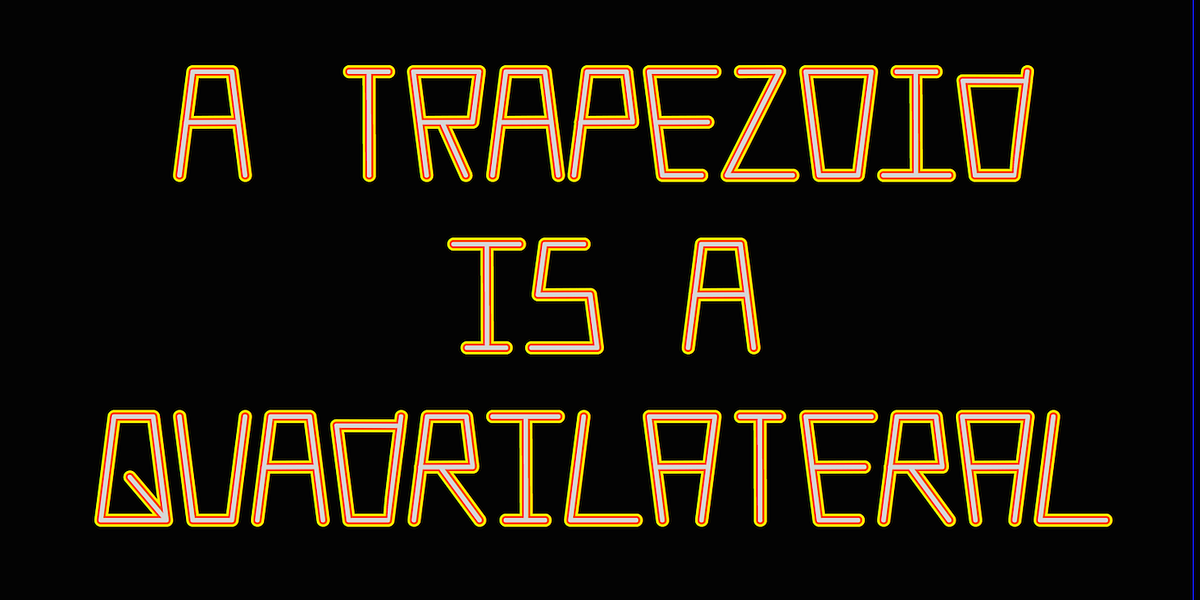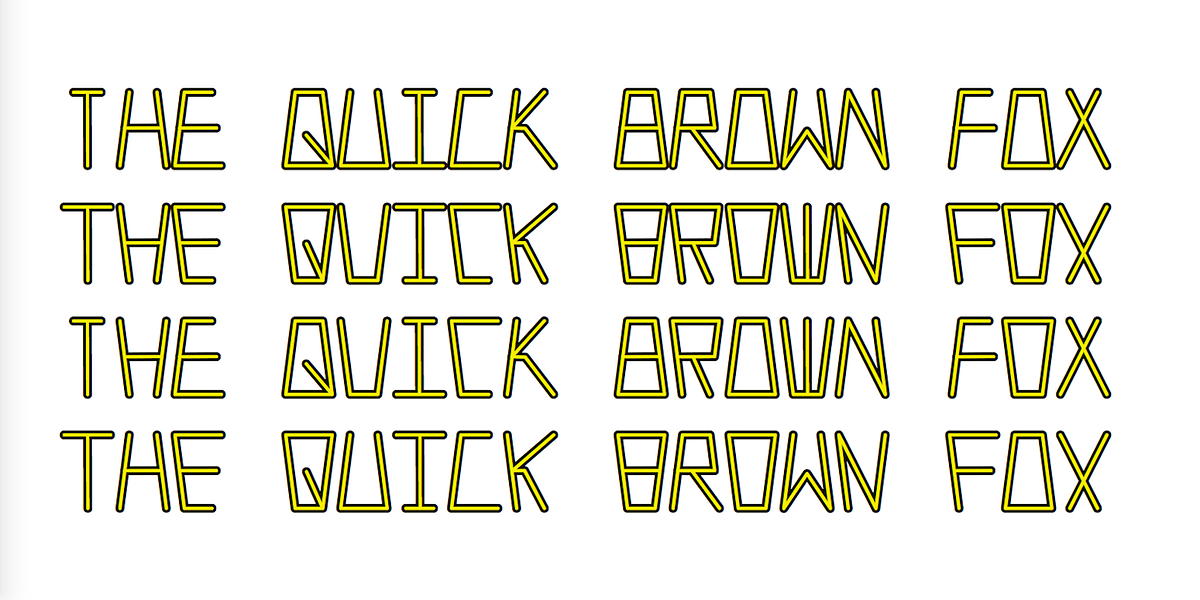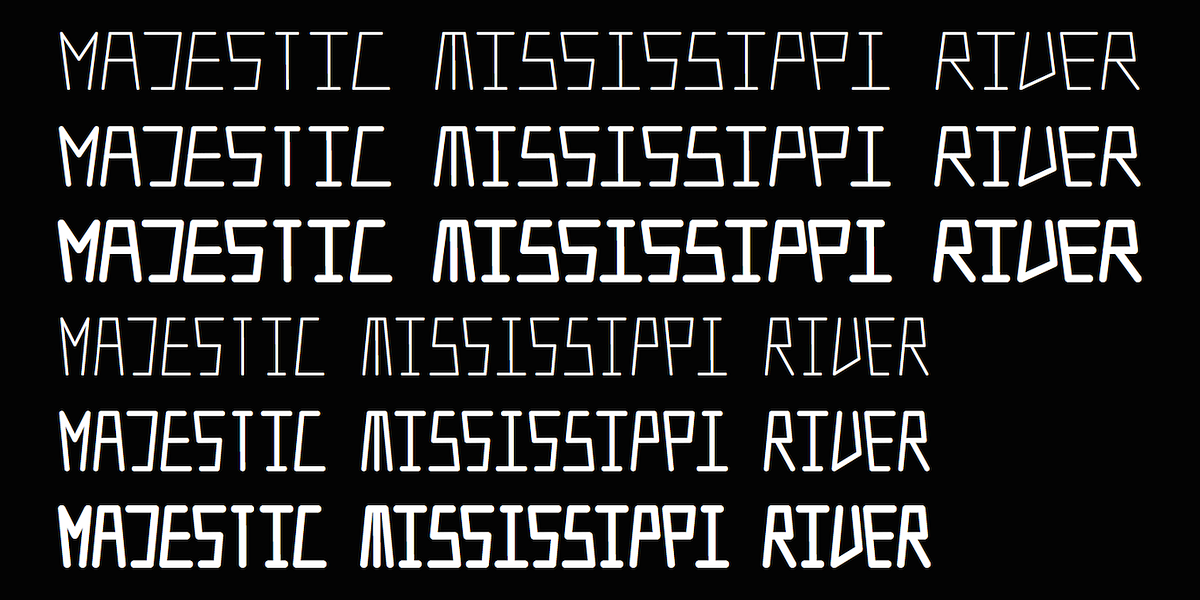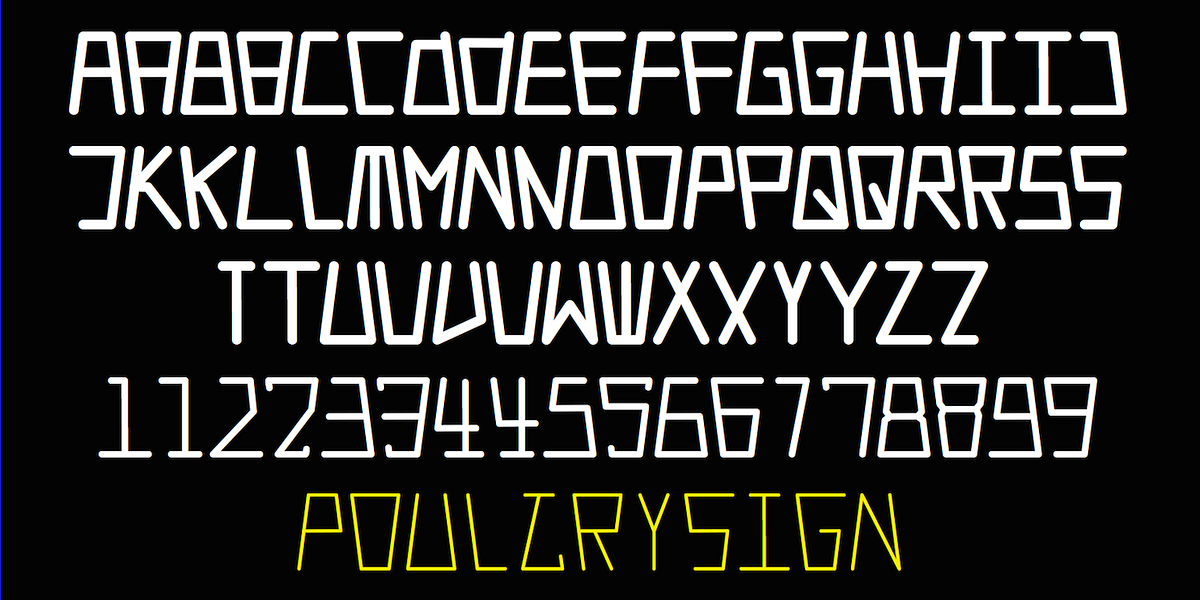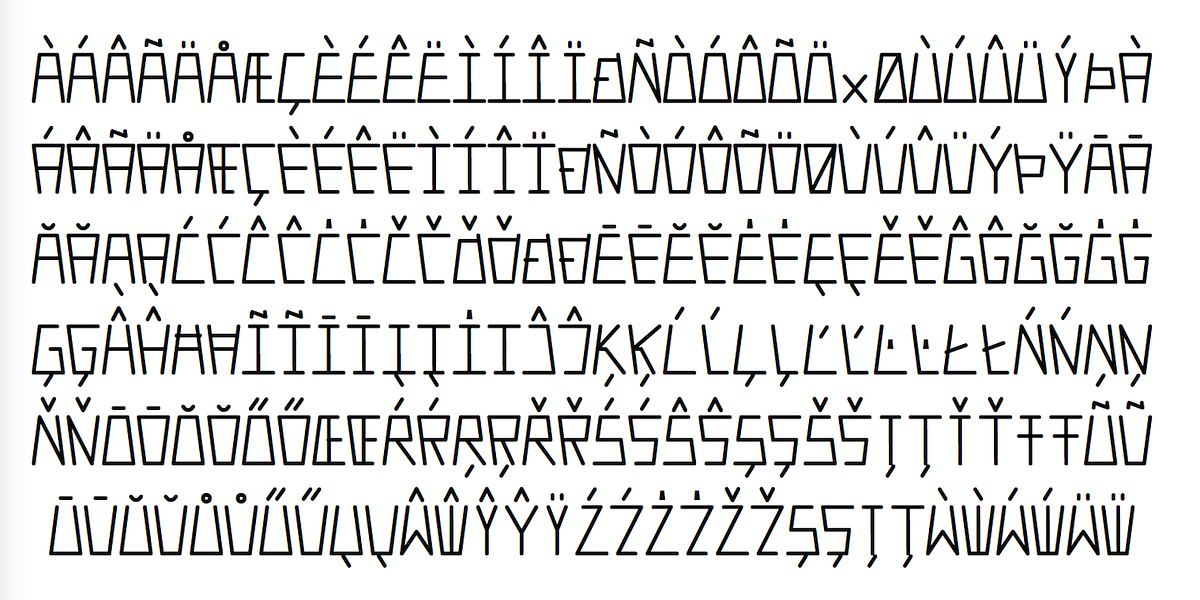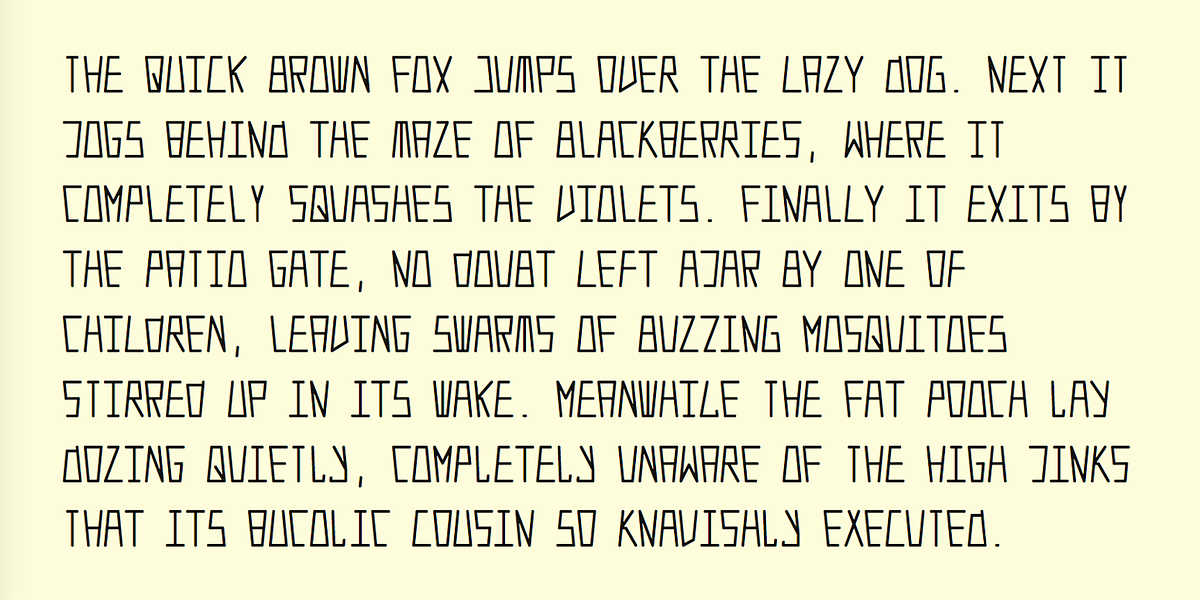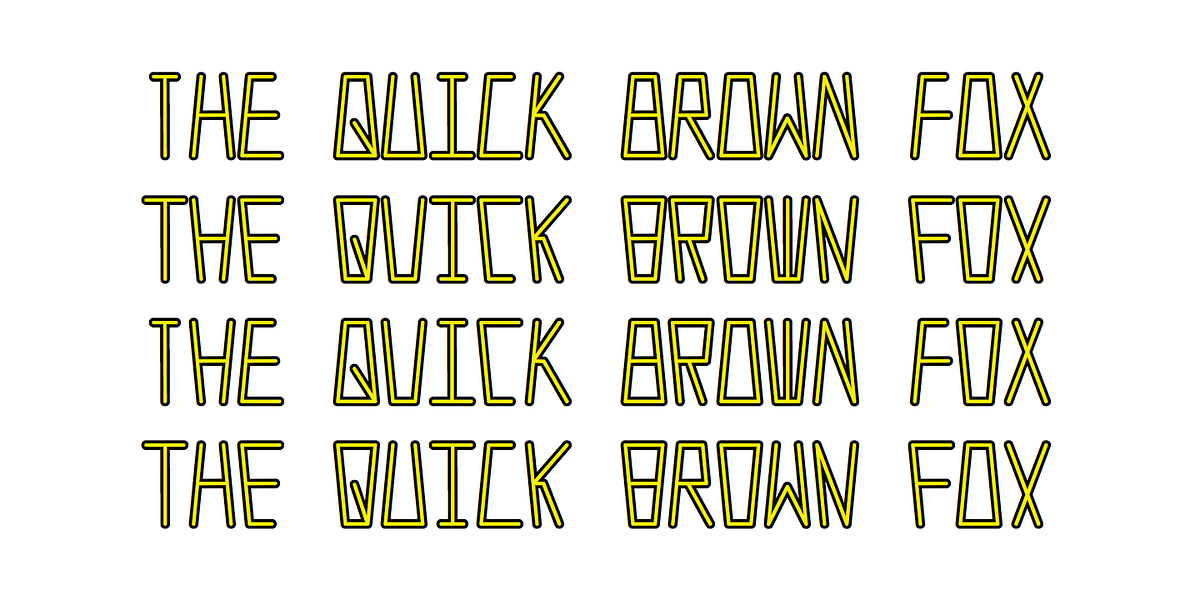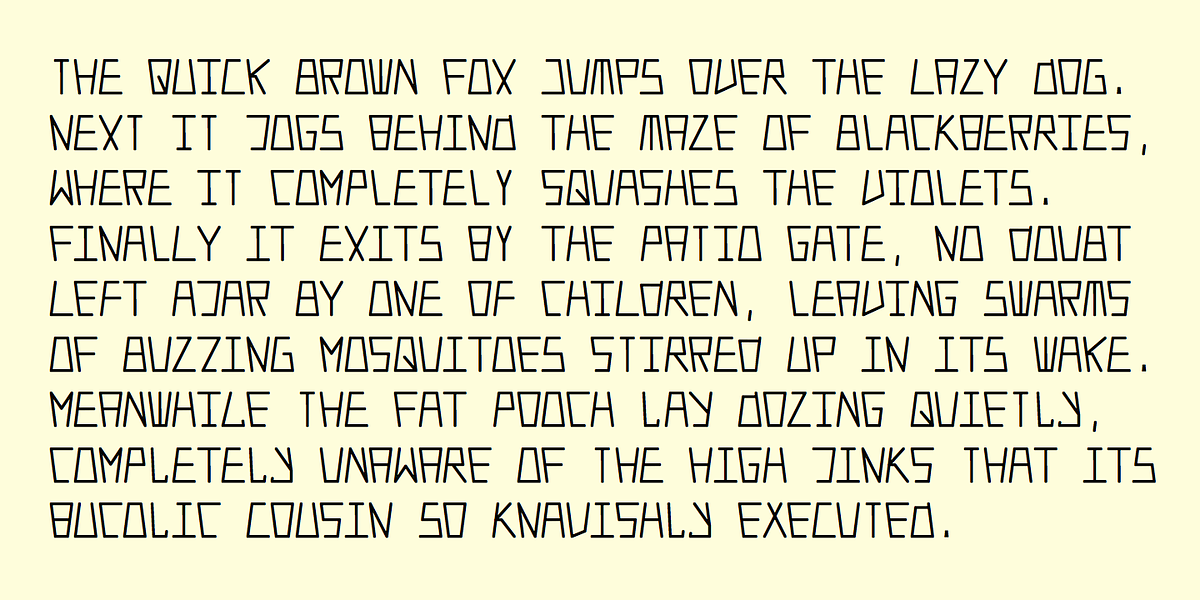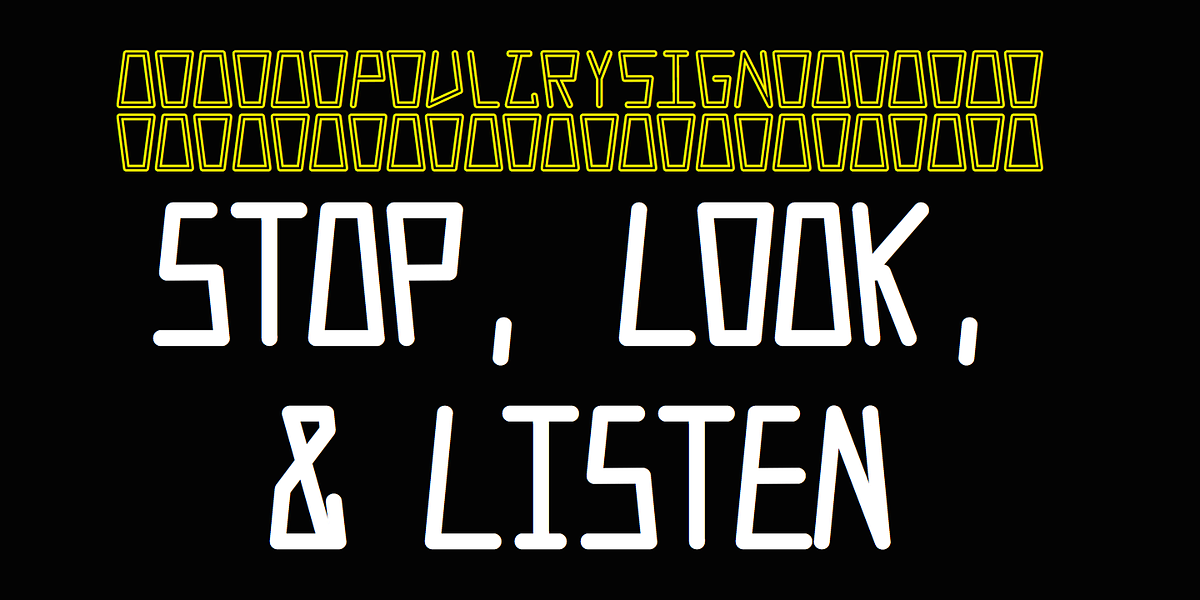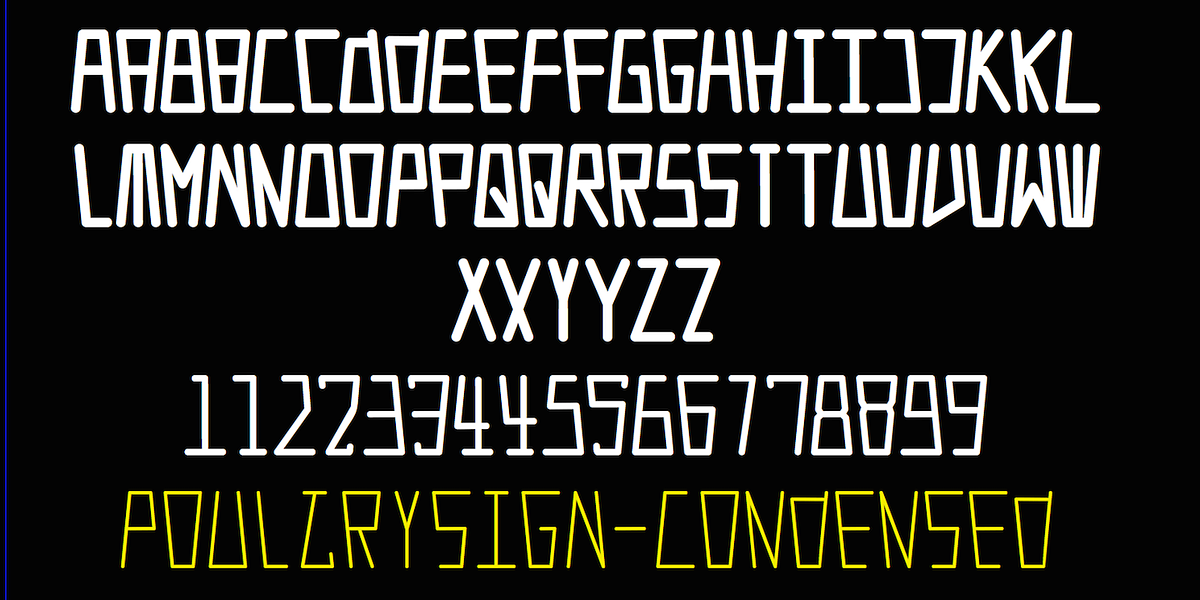
PoultrySign
Poultry Sign is a geometric display sans serif typeface inspired by 1932 newspaper lettering. It features monoline, trapezoidal letterforms that are unique and eye-catching. The font comes in six styles across two widths, with three weights per style: regular, bold, and black. Notably, Poultry Sign is entirely in all caps and monospaced. Lowercase keys mirror the upper case forms but reverse the trapezoid shape. The spacing within each width allows for layering of different styles to create bi-colored or tri-colored effects. Additionally, OpenType stylistic alternatives provide access to a second set of numbers and variations of letters T, N, L, Y, and lowercase V.